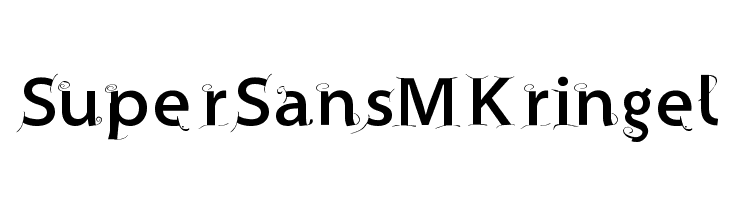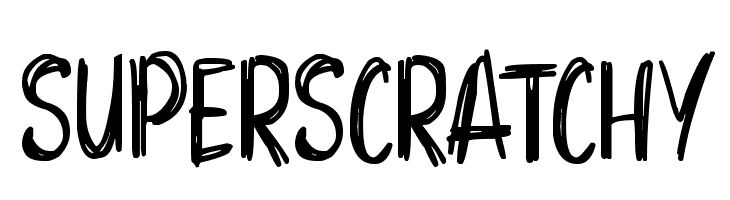
( Font by Sven Stuber - www.superlooper.de )
Ultra-bold, geometric font with a strong, modern presence.
A bold, brush-style font with dynamic, textured strokes.
( Fonts by Md Shohail Bhuian )
Tall, narrow handwritten font.
( Font by Sven Stuber - www.superlooper.de )
A pixelated, retro-style font with a digital, blocky appearance.
A bold, distressed serif font with a vintage, rugged appearance.
( Fonts by Muhammad Yafinuha )
A bold, playful font with thick, rounded characters and a bubbly appearance.
A bold, geometric font with a futuristic and edgy design.